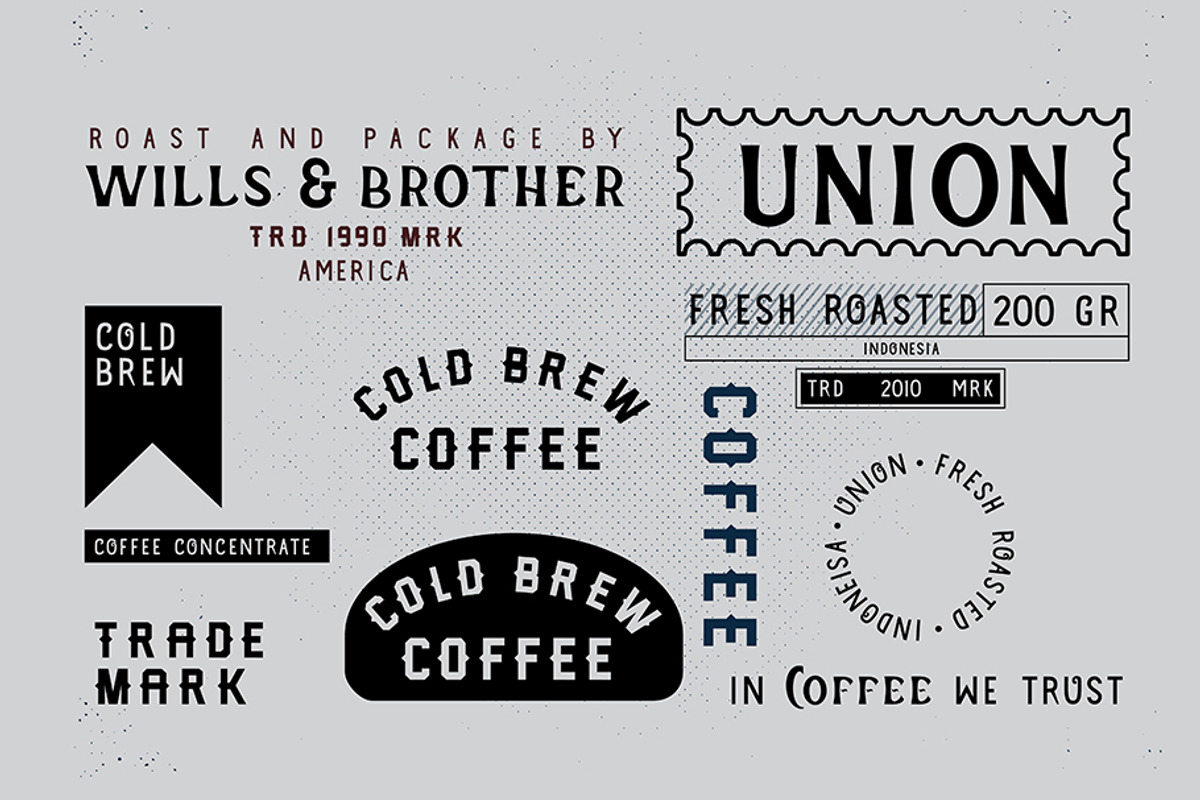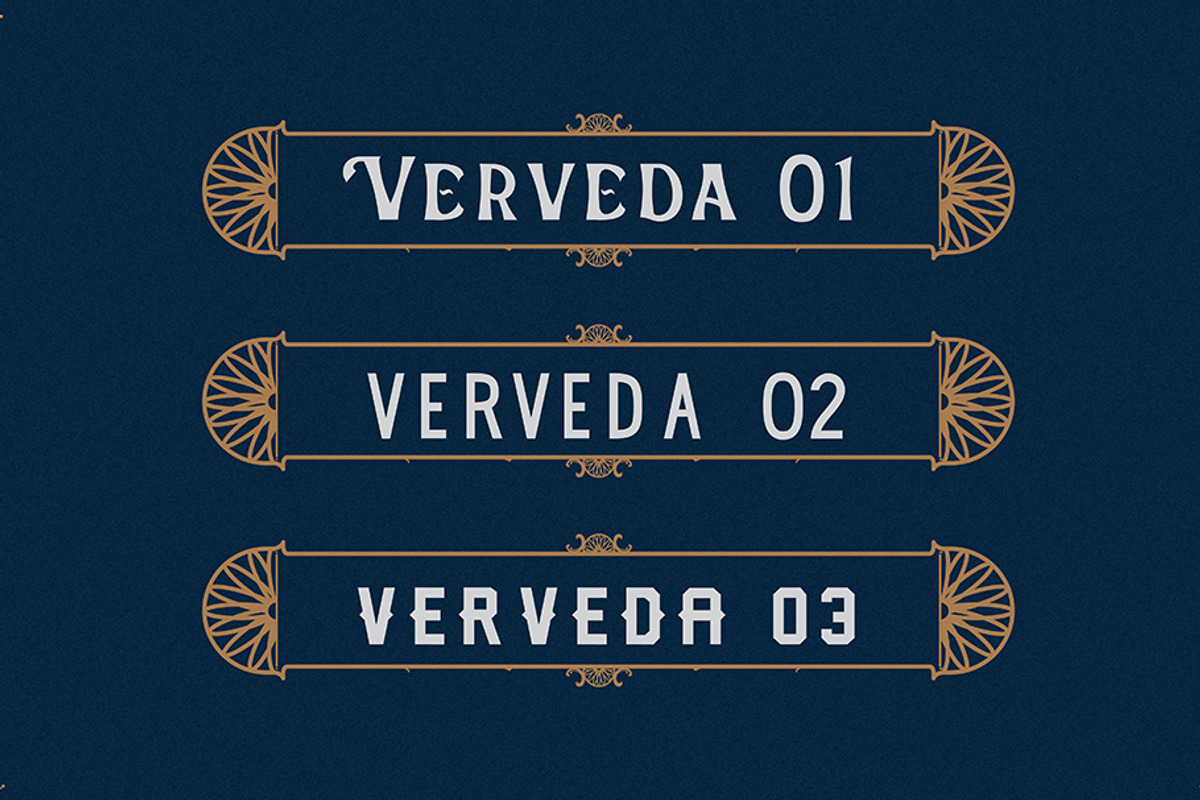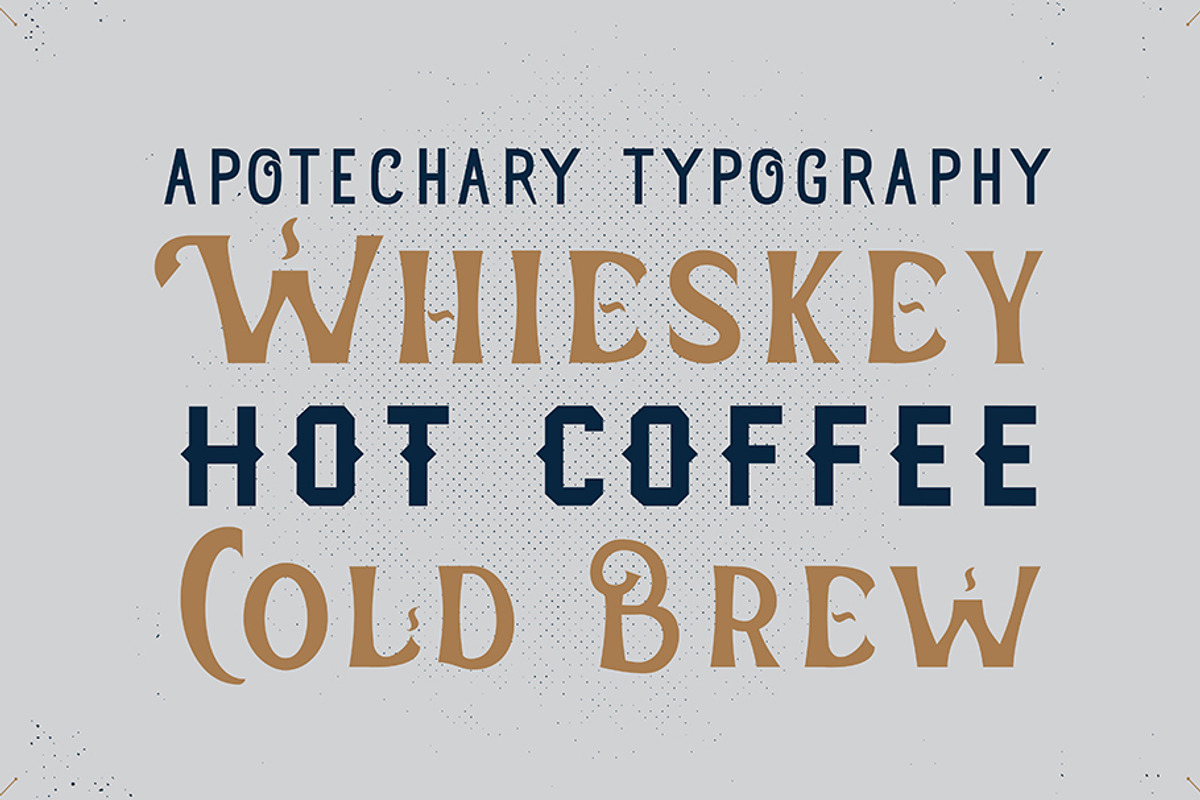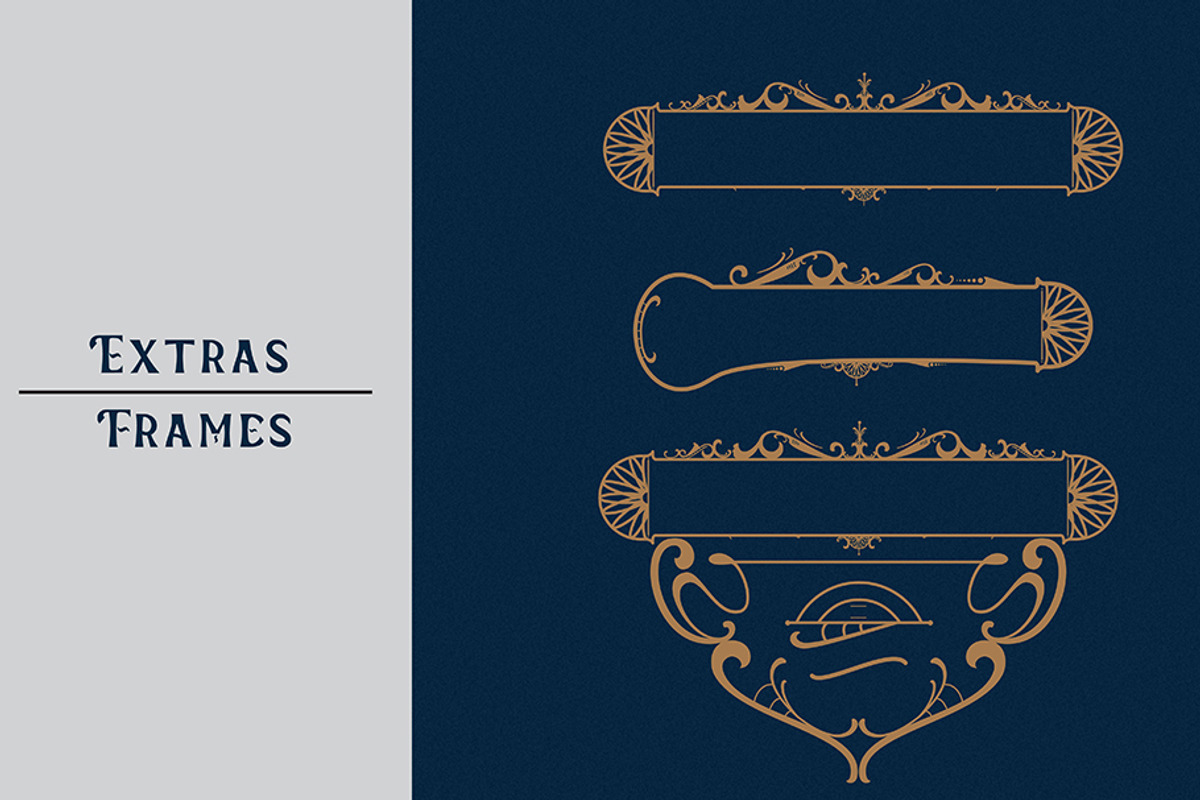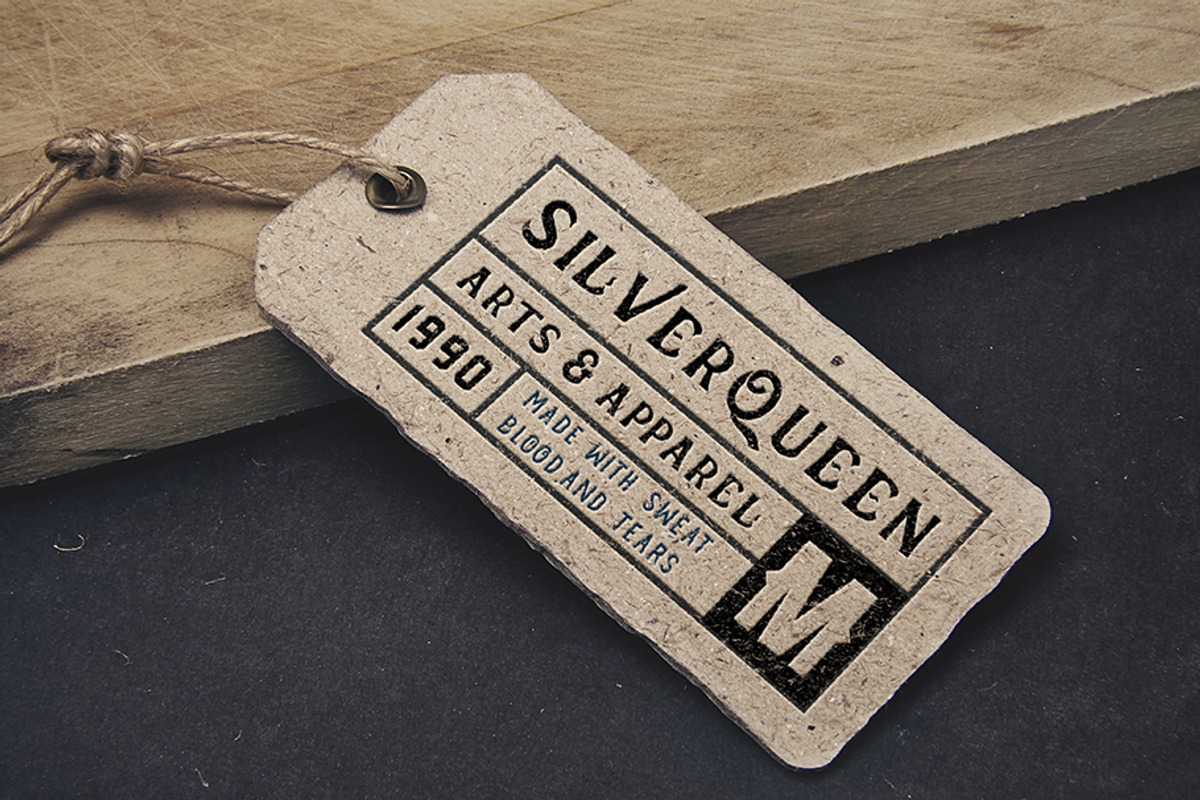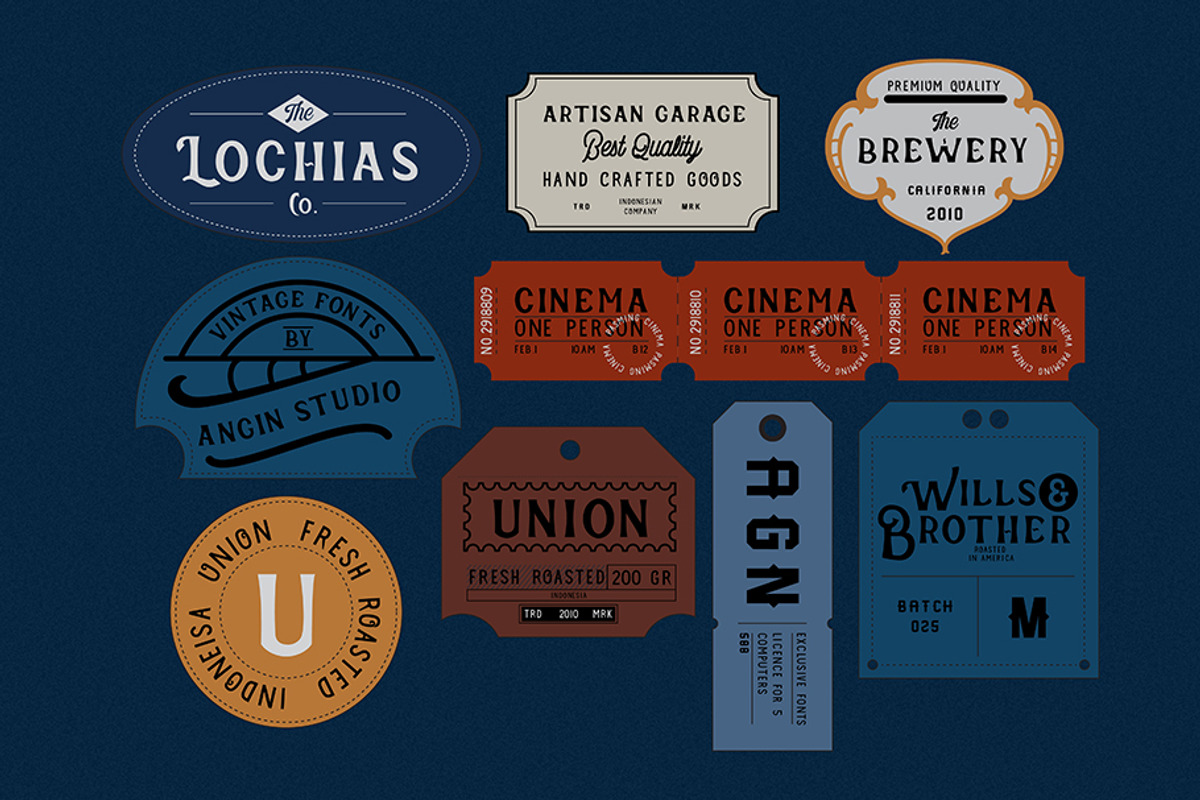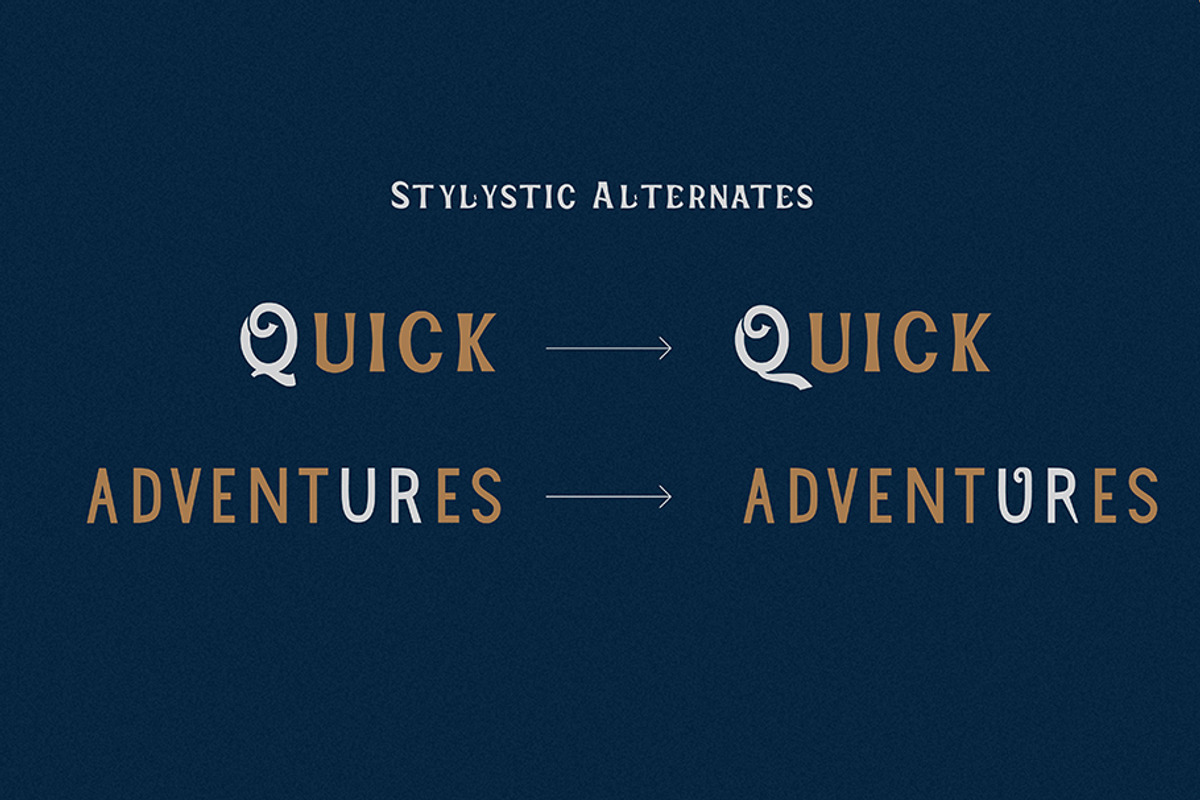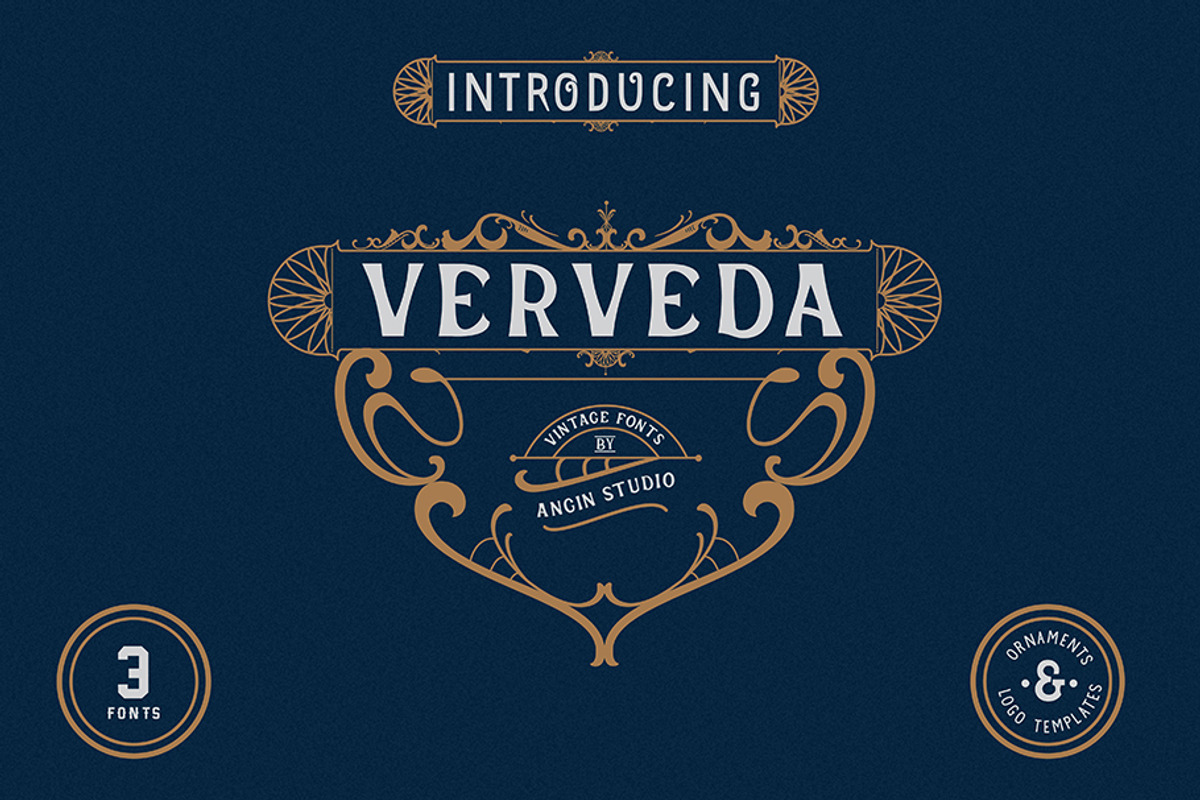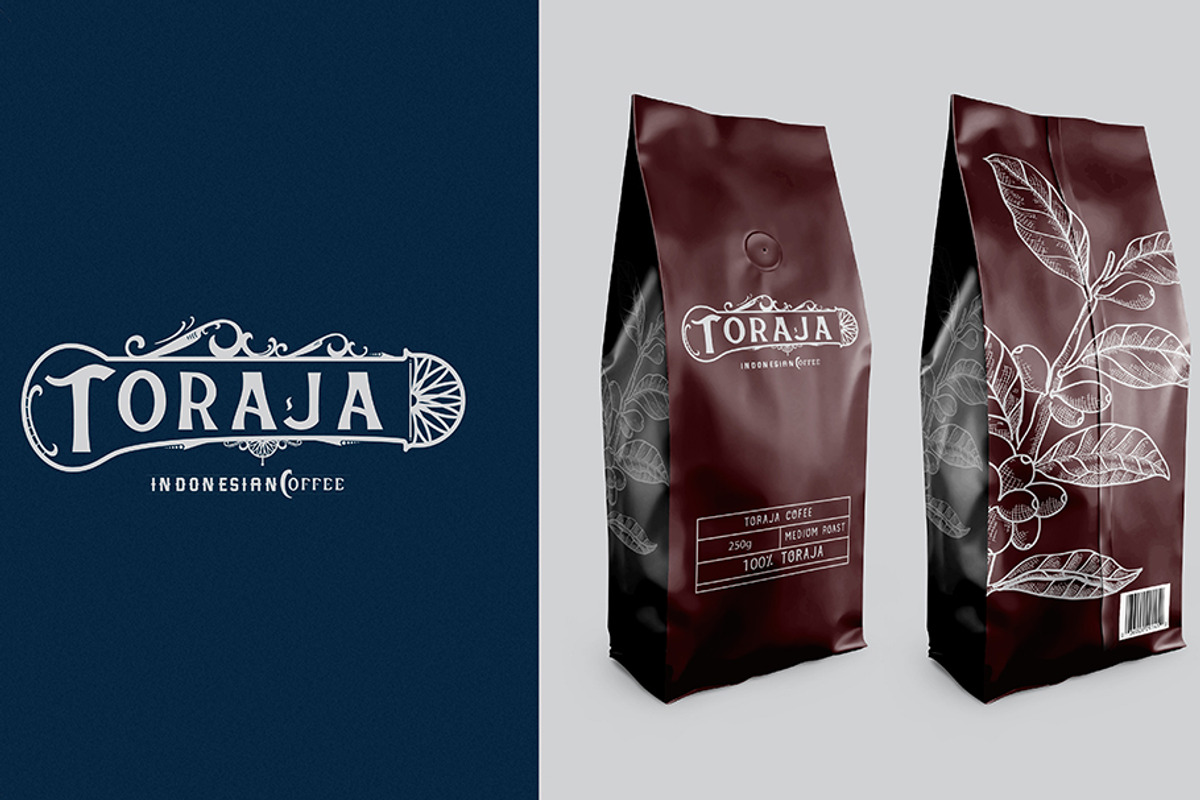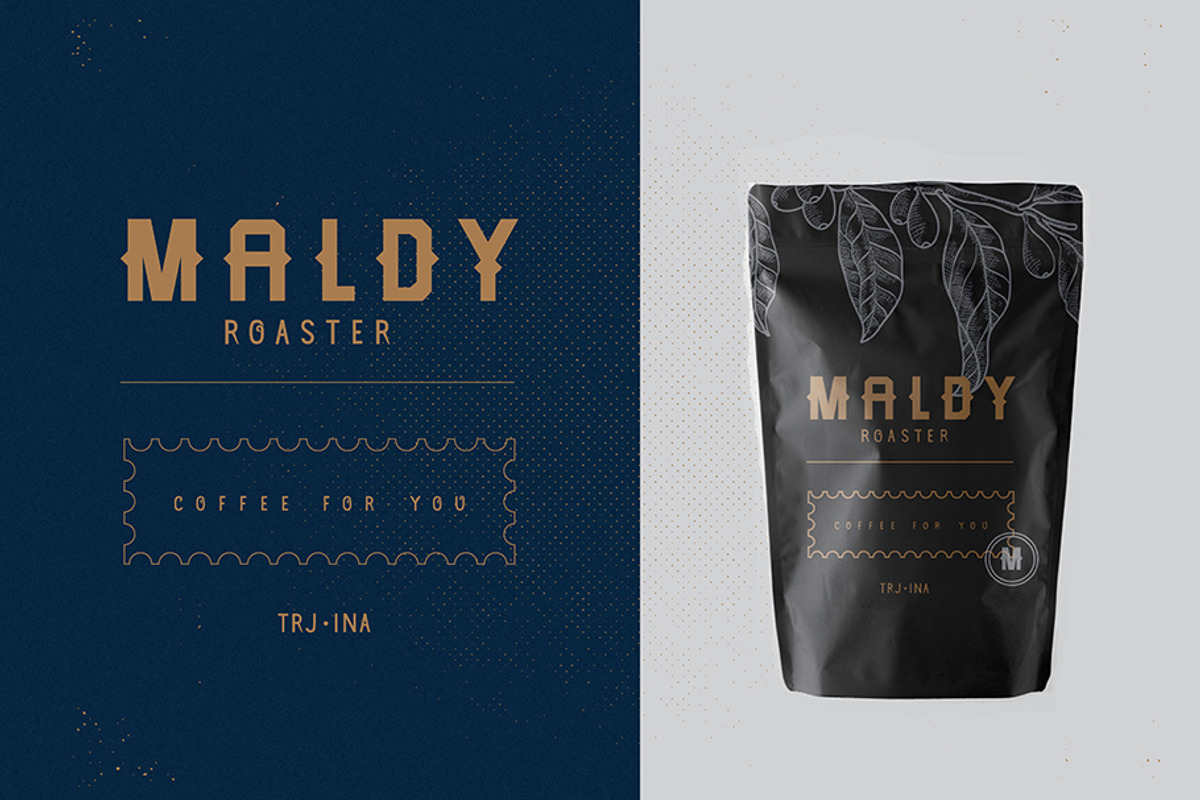
Verveda (3 fonts with extras)
we created fonts to be perfectly paired each other Inspired by old coffee and whieskey labels with apothecary tpography design.
Let us introduce you to Verveda, Verveda is fonts with vintage touch we created based on our hand lettering inspired by old labels and apothecary typography, you can use this fonts not only for a labels but also for packaging, posters, t-shirt design,etc.
verveda opentype features comes with alternates character and also it comes with mulitlingual support